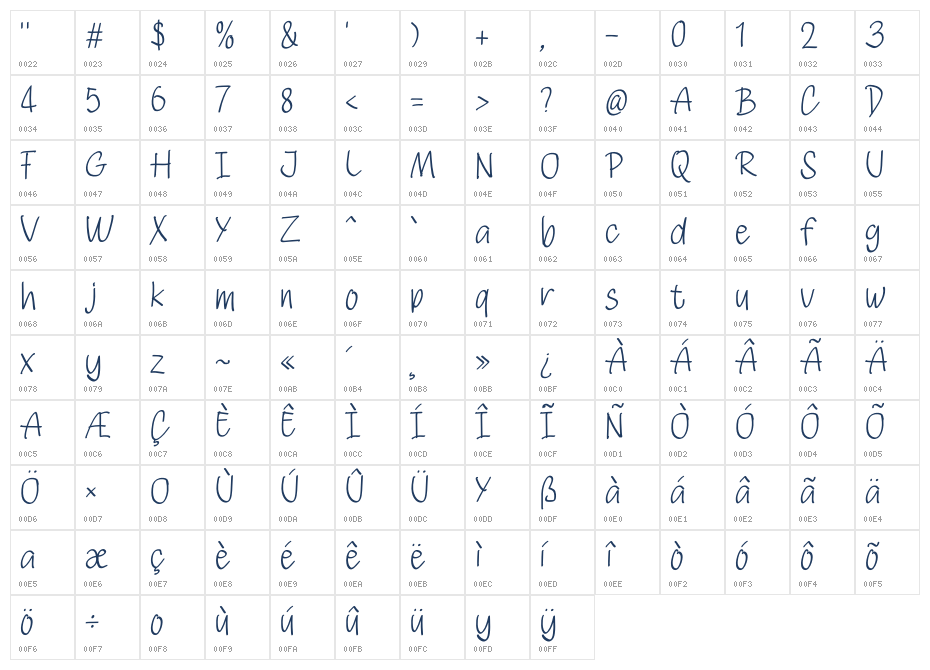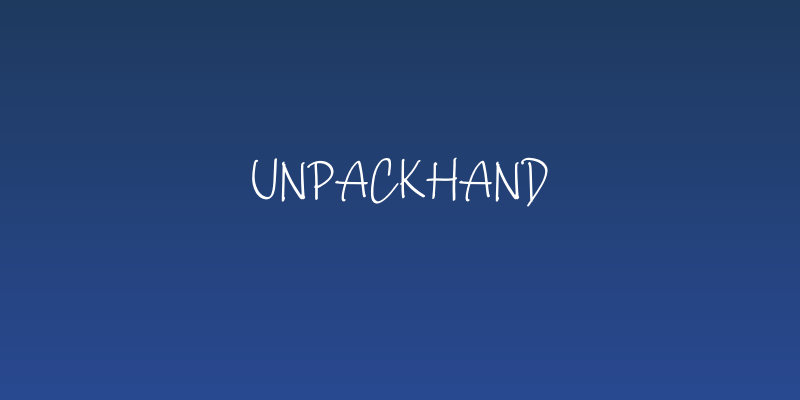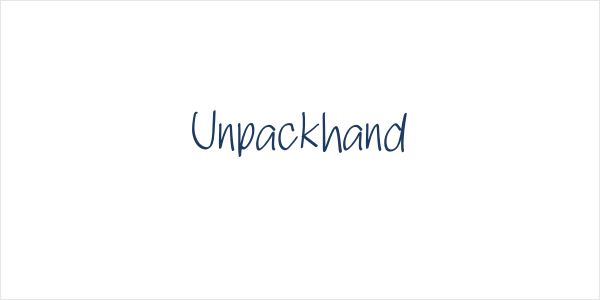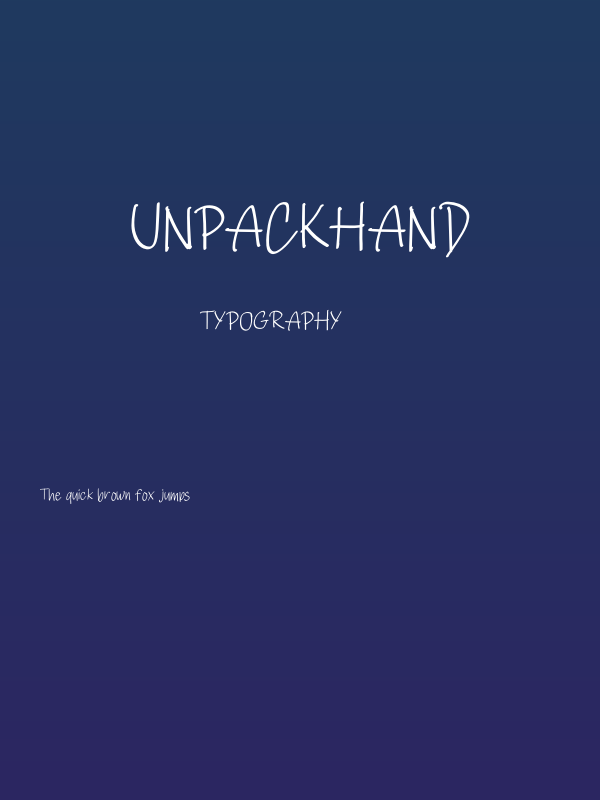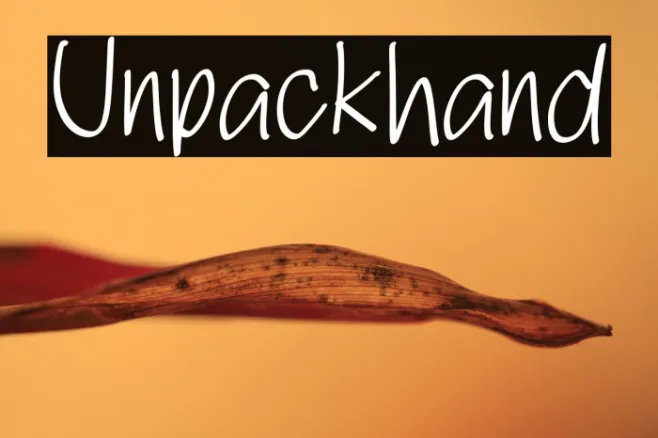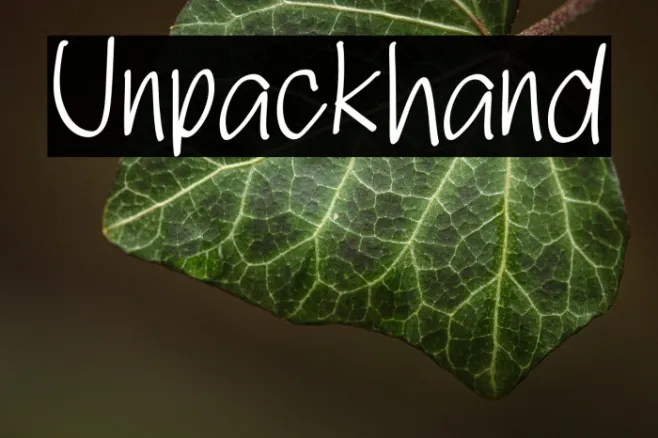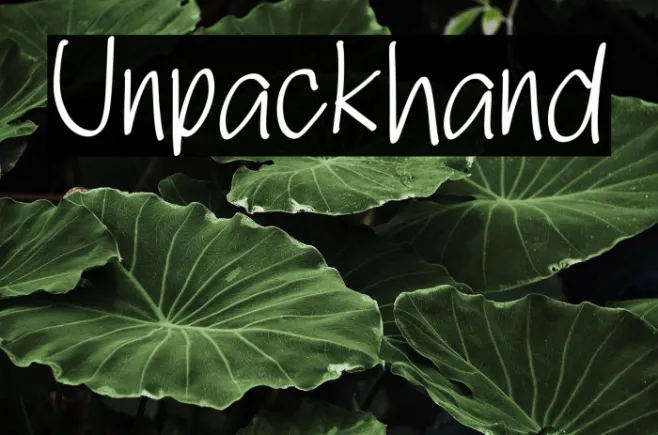
Unpackhand Font
Unpackhand Description
A casual, handwritten script font with a playful and informal style, featuring slightly irregular strokes and a friendly appearance.
| Overall Style | Casual, Playful, Informal |
| Use Case | Headlines, Body text, Logos, Invitations, Greeting cards |
| Author | Fonts by Justin Callaghan |